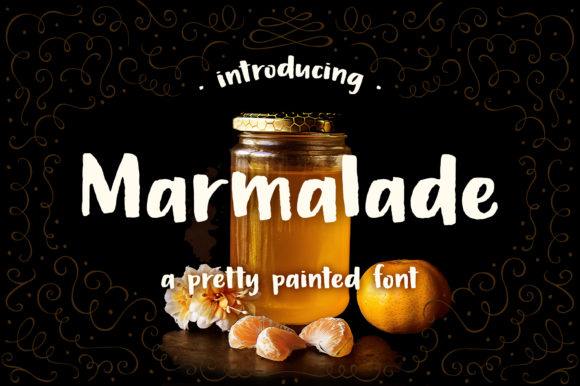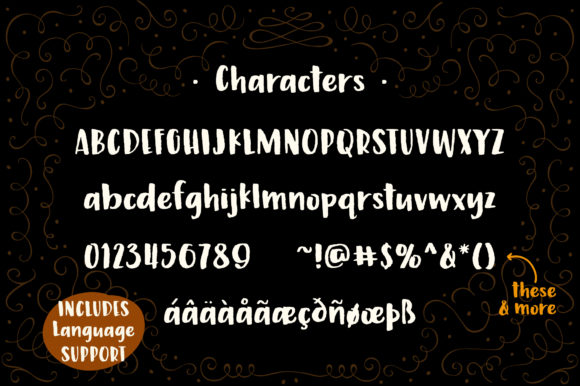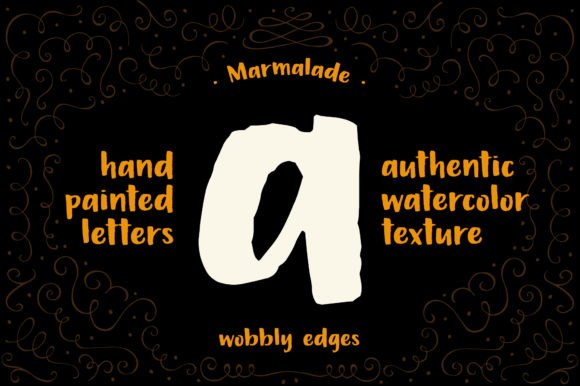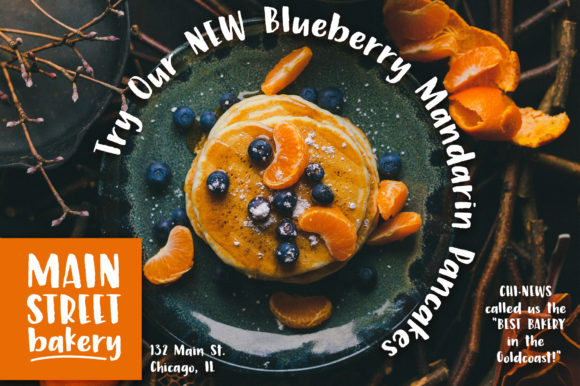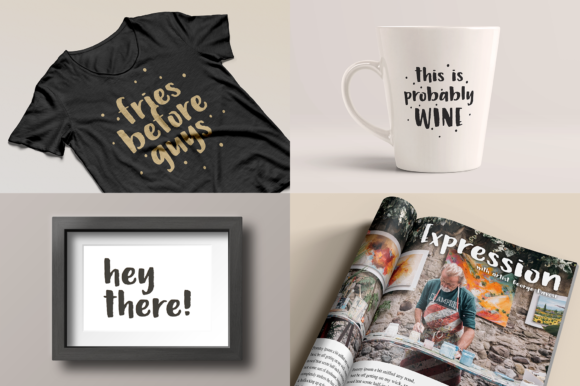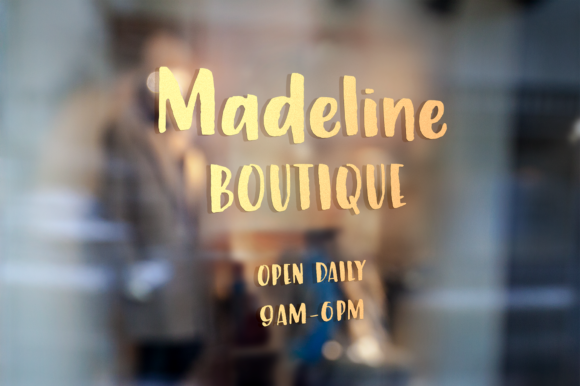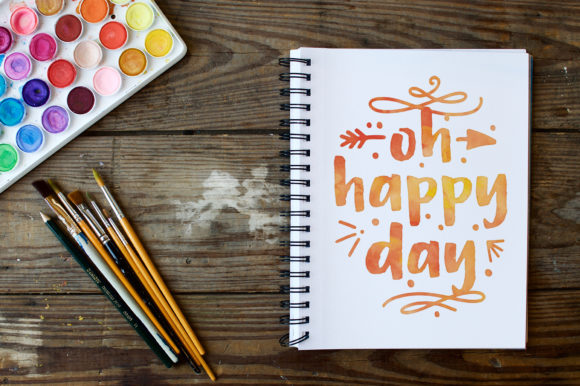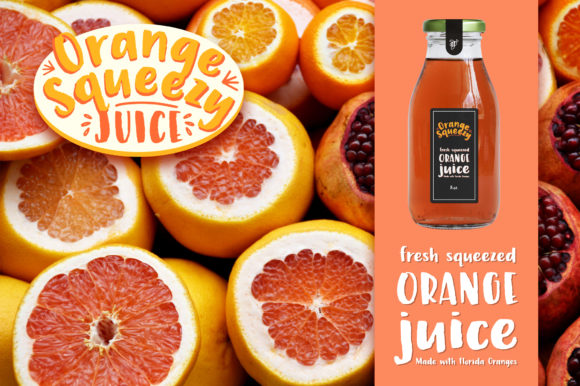
Marmalade Font
About Marmalade Font
Marmalade is a gorgeously sweet and charming script that will take any design idea to the next level. Fall in love with its unique charm!